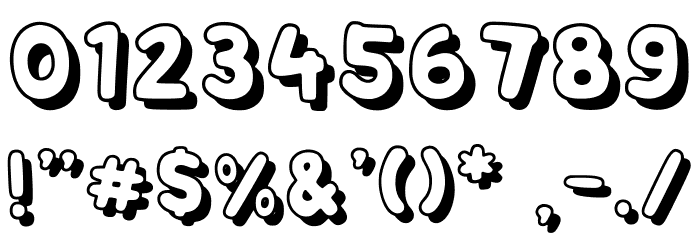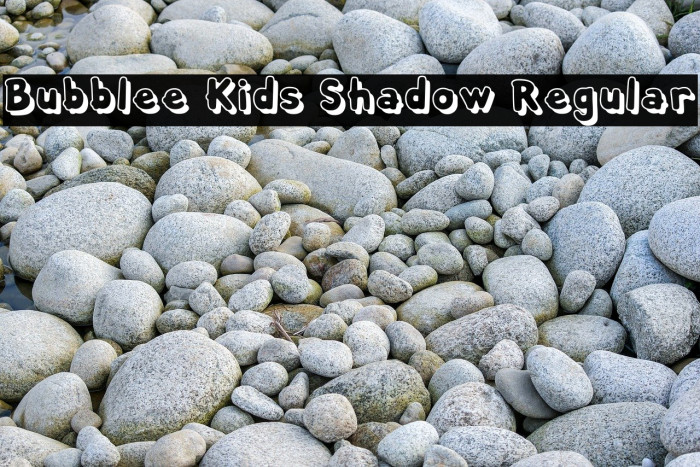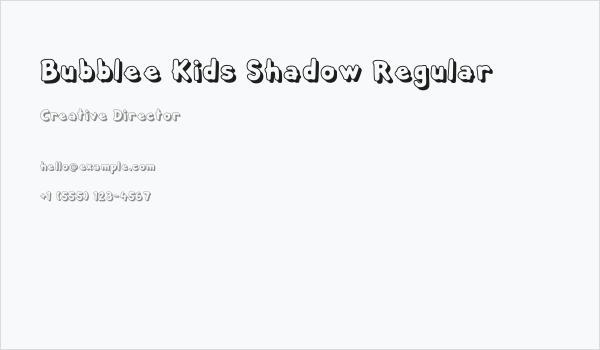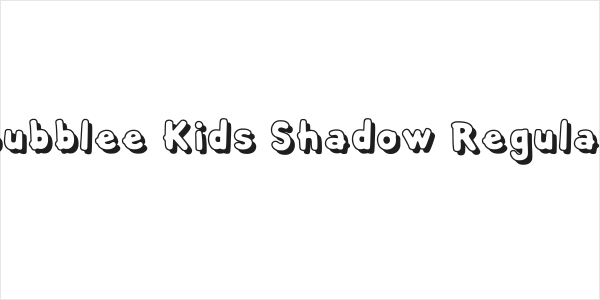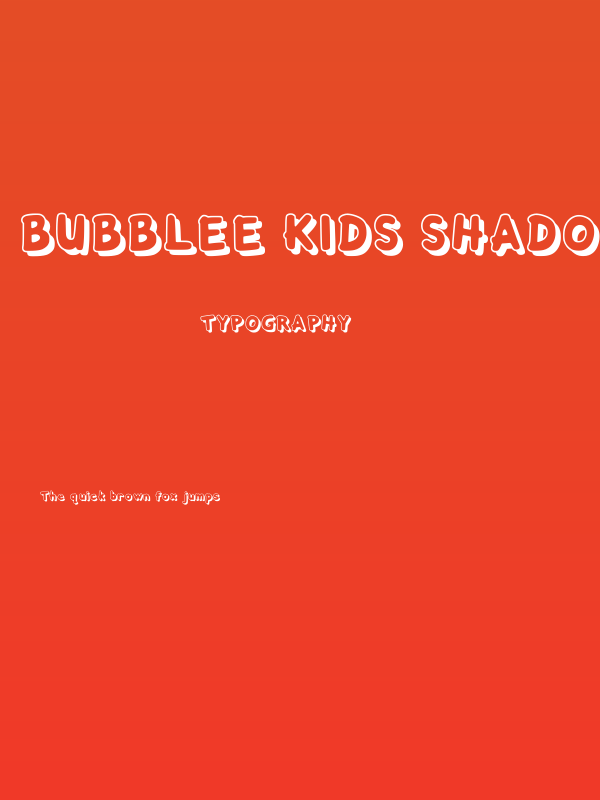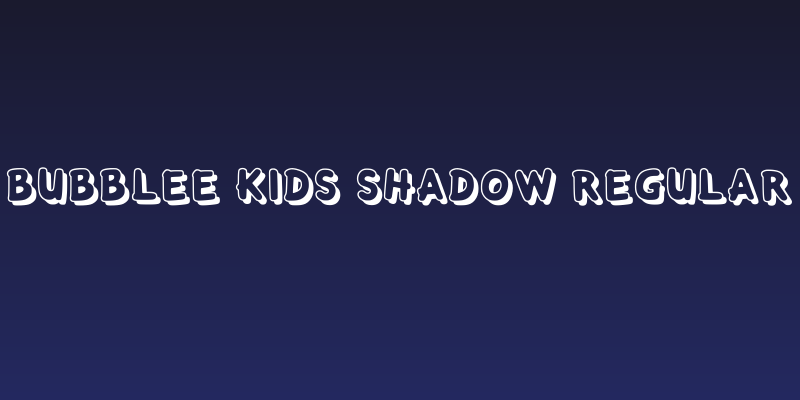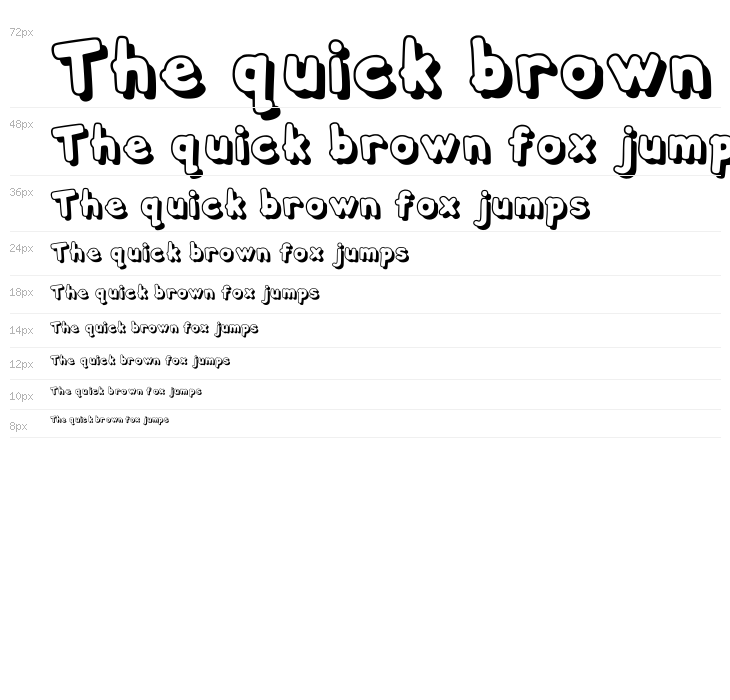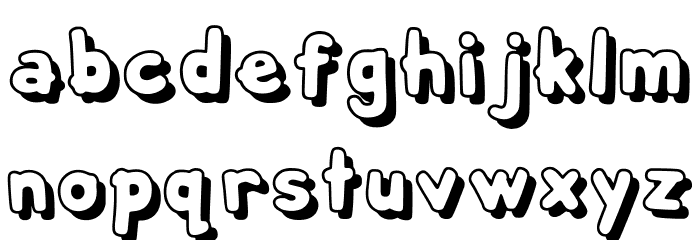
Bubblee Kids Shadow Regular Font
Bubblee Kids Shadow Regular Description
This playful and whimsical font features bold, rounded characters with a distinct shadow effect that adds depth and a sense of fun. The letters are evenly spaced, with a slightly exaggerated, cartoonish style that makes them stand out. The font is highly legible, with a consistent stroke width that maintains clarity even with the added shadow. It is perfect for projects that require a lighthearted and engaging visual element, such as children's books, playful branding, or educational materials. The numbers and special characters are designed to match the playful aesthetic, ensuring a cohesive look across all text elements.
| Proposed Projects | Ideal for children's books, playful branding, educational materials, and creative posters. |